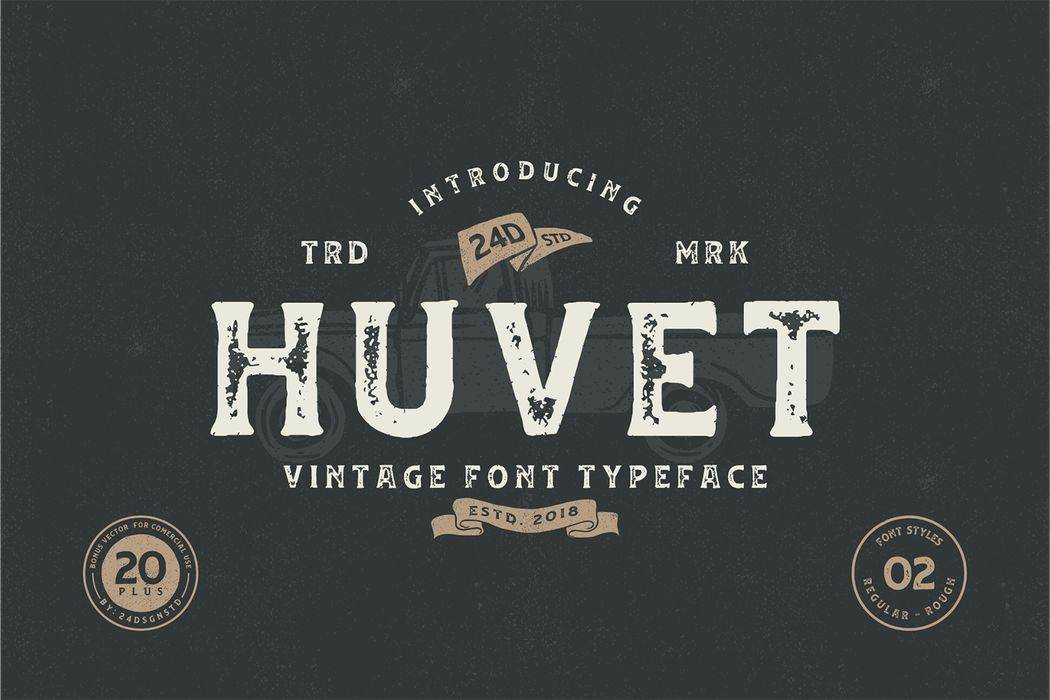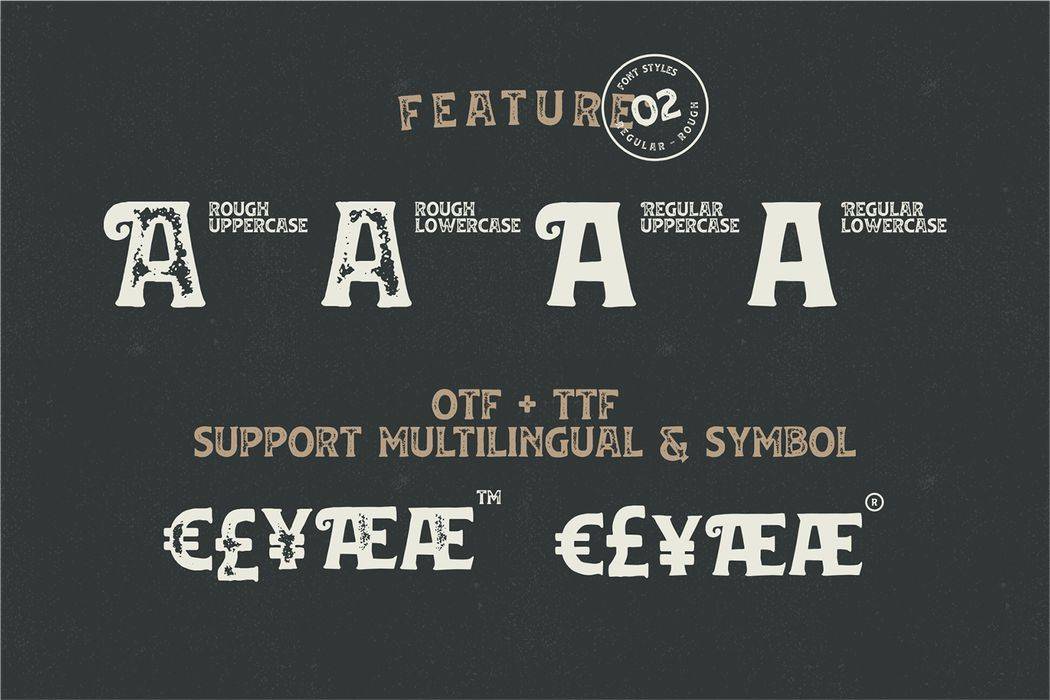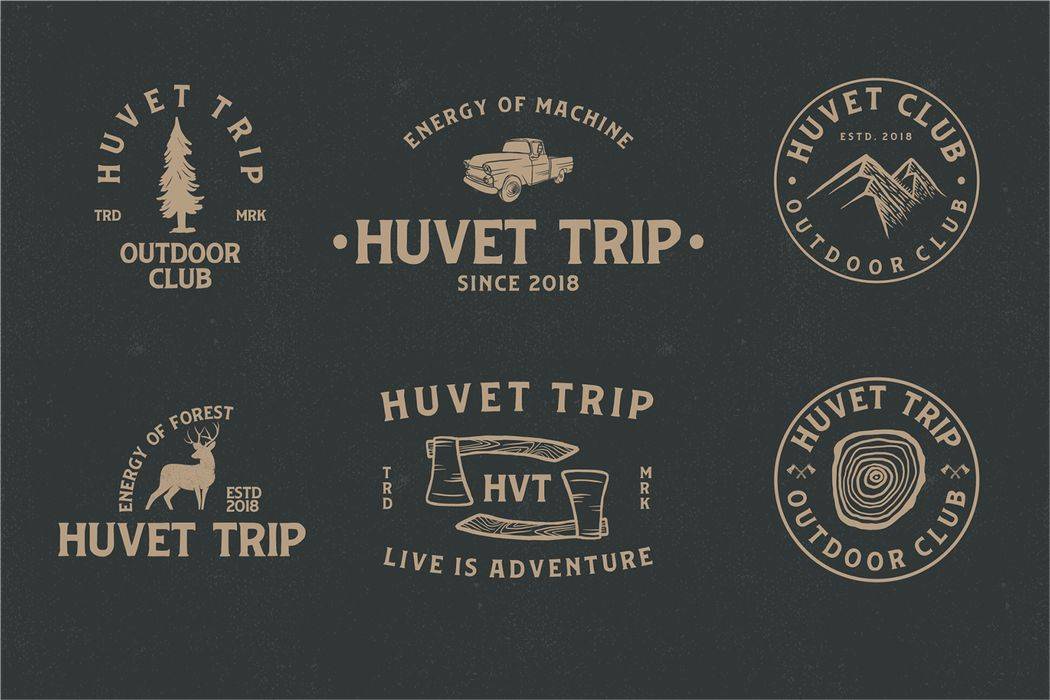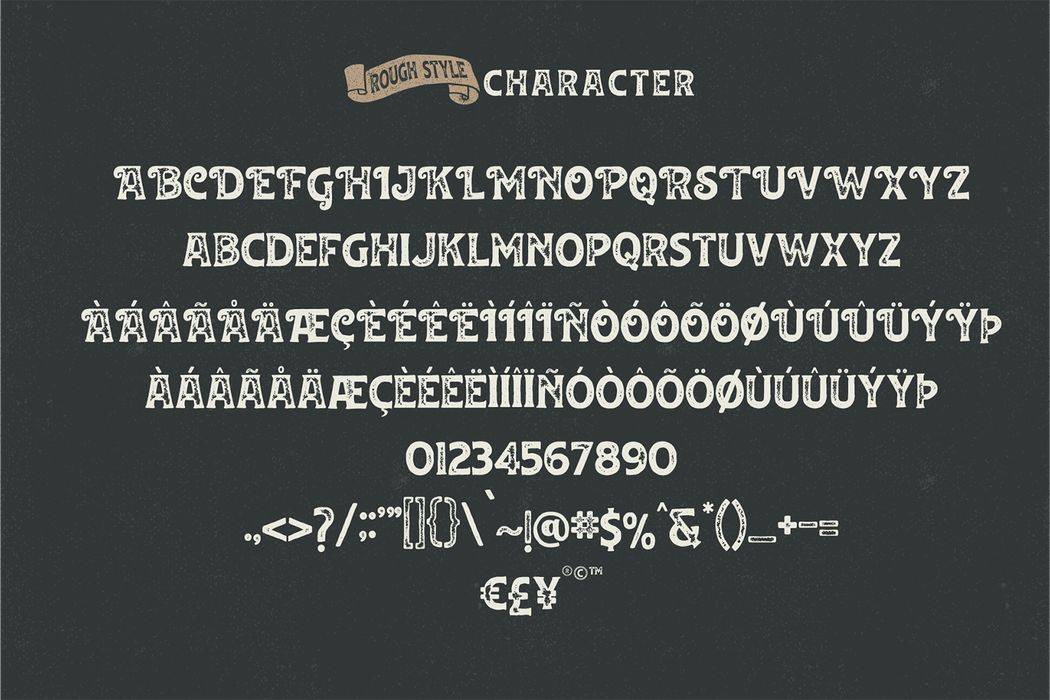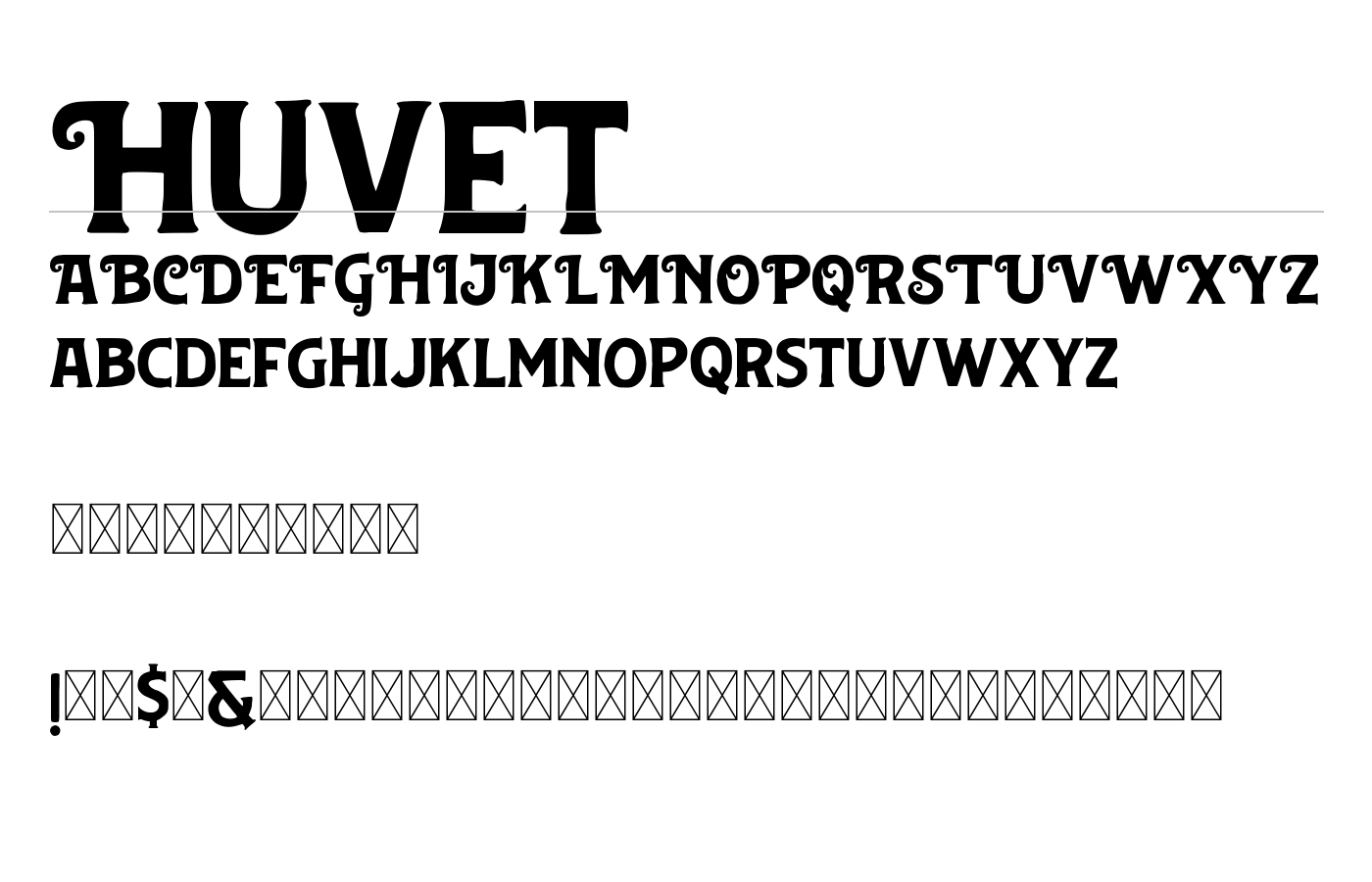
Huvet is a bold serif font with a strong vintage vibe, featuring thick, blocky letterforms accented by whimsical curls and unique shapes, especially noticeable in characters like the "H" and ampersand. Its sturdy weight and high contrast strokes give it a playful yet authoritative presence, making it ideal for branding, headlines, or packaging where a retro, eye-catching style is desired. This font works well in projects that need a nostalgic touch combined with a bold, confident personality.
Huvet Font
About Huvet Font